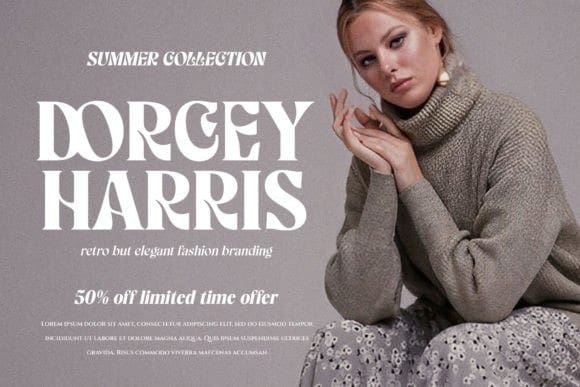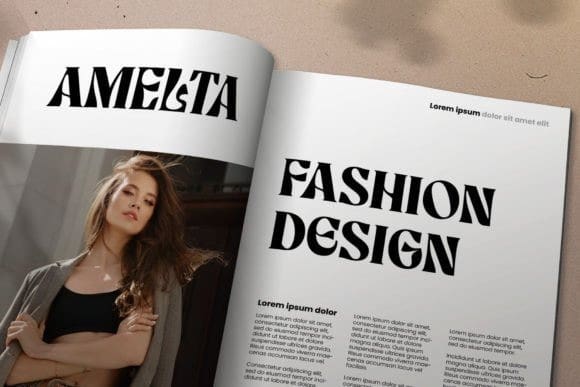
Giselma Font
Giselma Font is a bold and assertive serif font. No matter the topic, this font will be an incredible asset to your fonts’ library, as it has the potential to elevate any